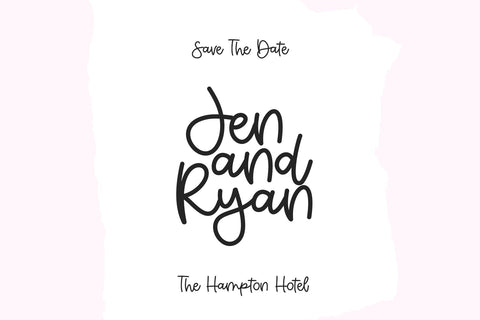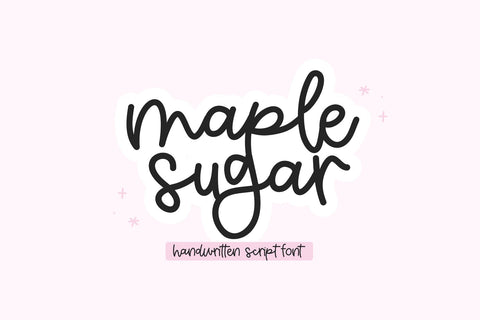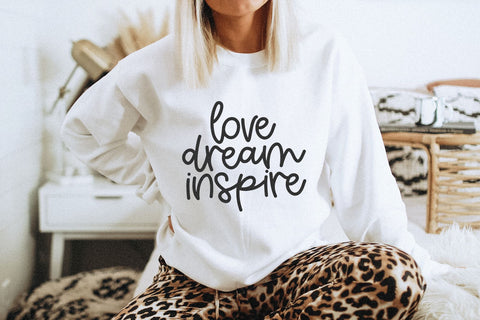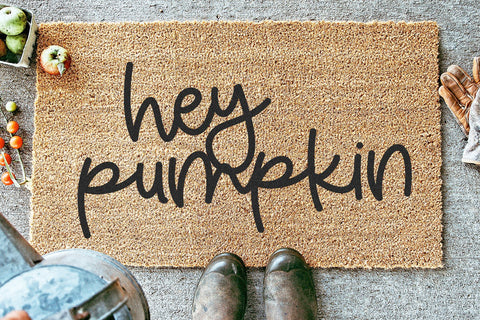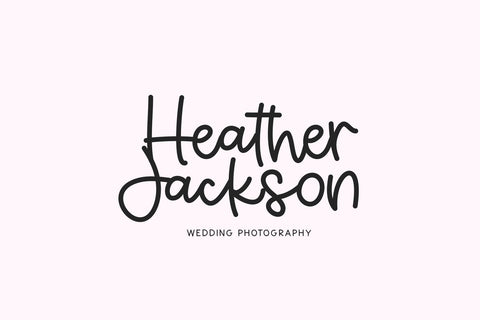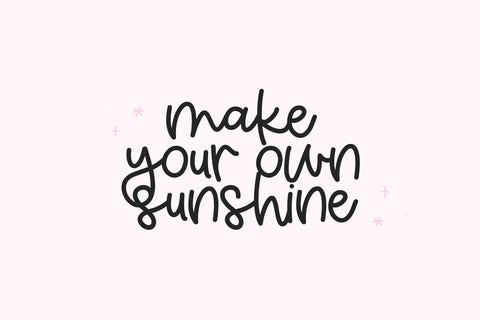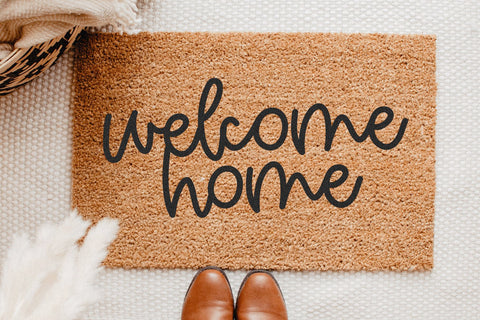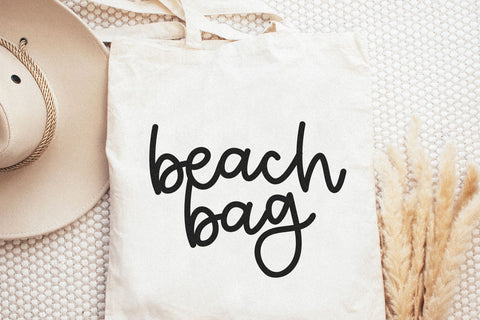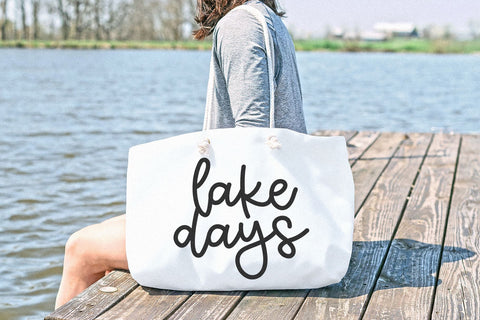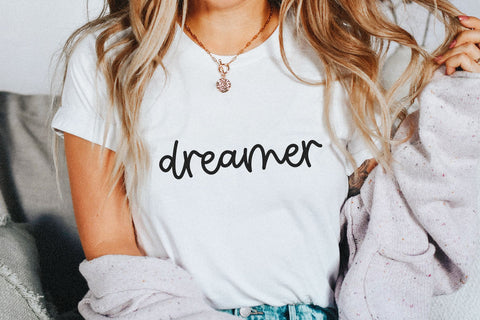
Maple Sugar - Handwritten Script Font
Maple Sugar is handwritten script font with a bouncy and unique look!
This font is perfect for all of your craft projects, vinyl, stickers, procreate, wedding decor, farmhouse signs and more!